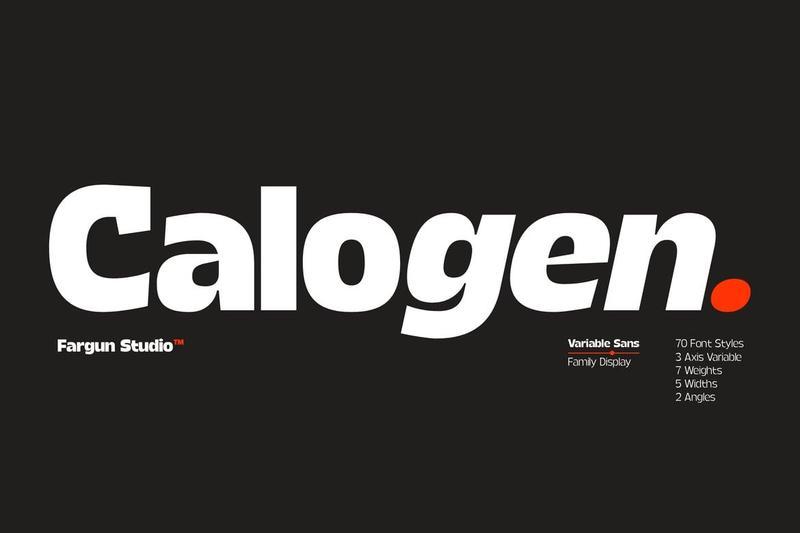
**Calogen** is a bold variable grotesk sans serif built for modern design. With its clean geometry, strong presence, and refined details, it delivers a confident look that works perfectly for branding, logos, headlines, editorial layouts, posters, packaging, and digital interfaces.
Designed to be both powerful and versatile, Calogen gives you the flexibility to create everything from bold visual identities to clean contemporary typography, making it an essential typeface for today’s creative projects.
* Variable Font Family
* 7 Weights (Thin to Black)
* 5 Widths (Compressed to Expanded)
* Upright & Italic Styles
* Total of 70 Font Styles + Variable
* OpenType Features
* Standard Ligatures
* Extensive Multilingual Support